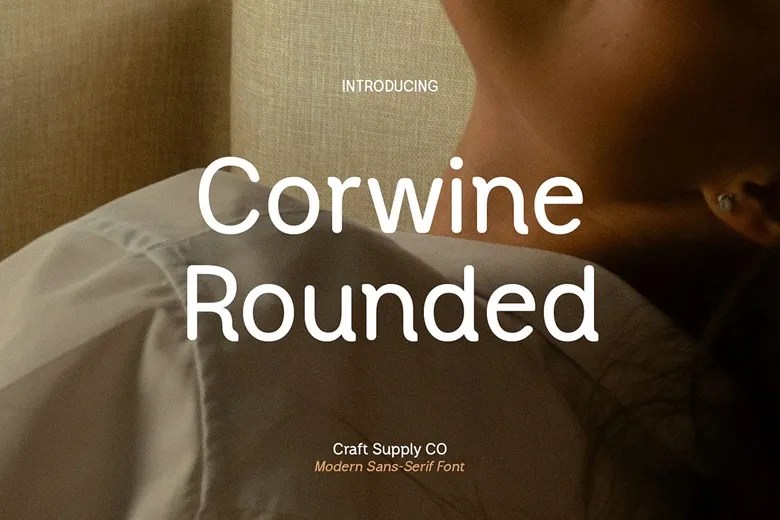
Corwine Rounded Font
Corwine Rounded is a contemporary sans serif font that combines the neatness of geometric typography with the gentle appeal of rounded edges. Its clean, unadorned structure exudes professionalism, while the subtly curved corners add a touch of warmth and approachability. This balance makes Corwine Rounded a perfect choice for modern designs that require both elegance and clarity.
With its rectangular shapes and high level of readability, Corwine Rounded excels in a variety of applications, from logos and websites to user interfaces and print media. Its versatile design ensures clear, precise typography, making it ideal for both digital and print projects.